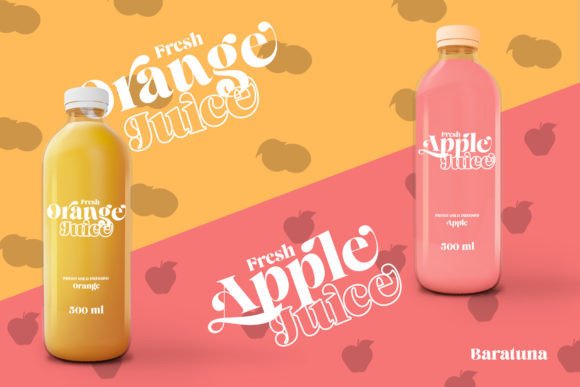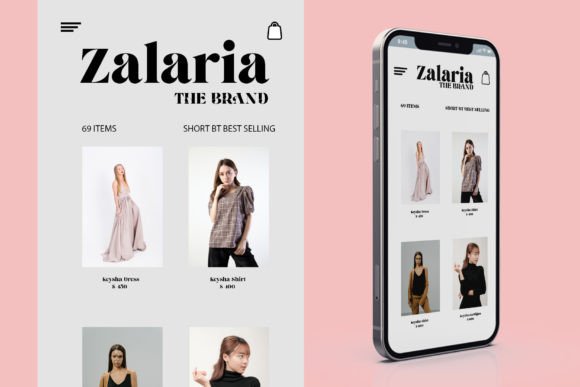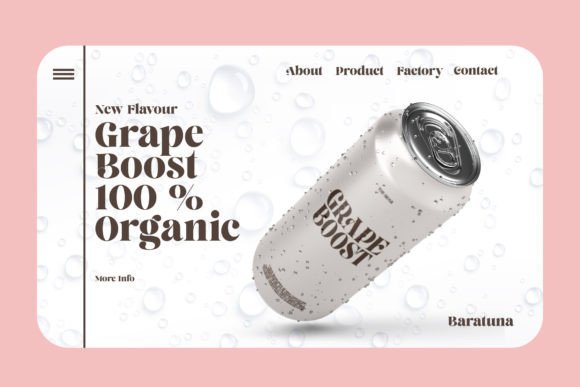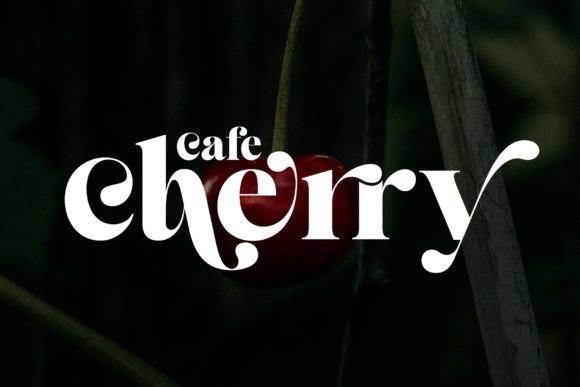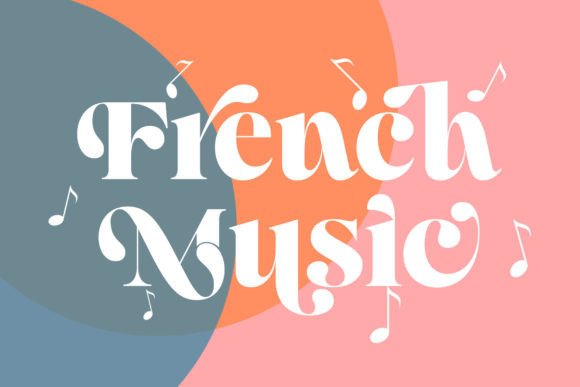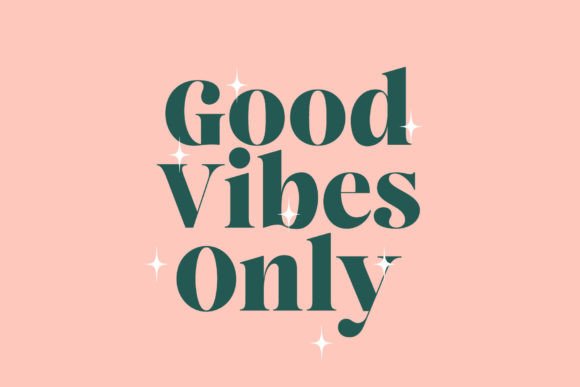
Introduction to Baratuna Font
Baratuna is a special modern-style serif font made with accuracy and beautiful curves.
It comes with alternative characters and ligatures that make your work very special It is perfect for branding designs, logos, greeting cards, title packaging, and other designs.
Key Features of Baratuna Font
Baratuna Font offers exceptional quality and versatility, making it a valuable addition to your design toolkit. Whether you’re creating for personal projects or commercial use, Baratuna Font delivers professional results.